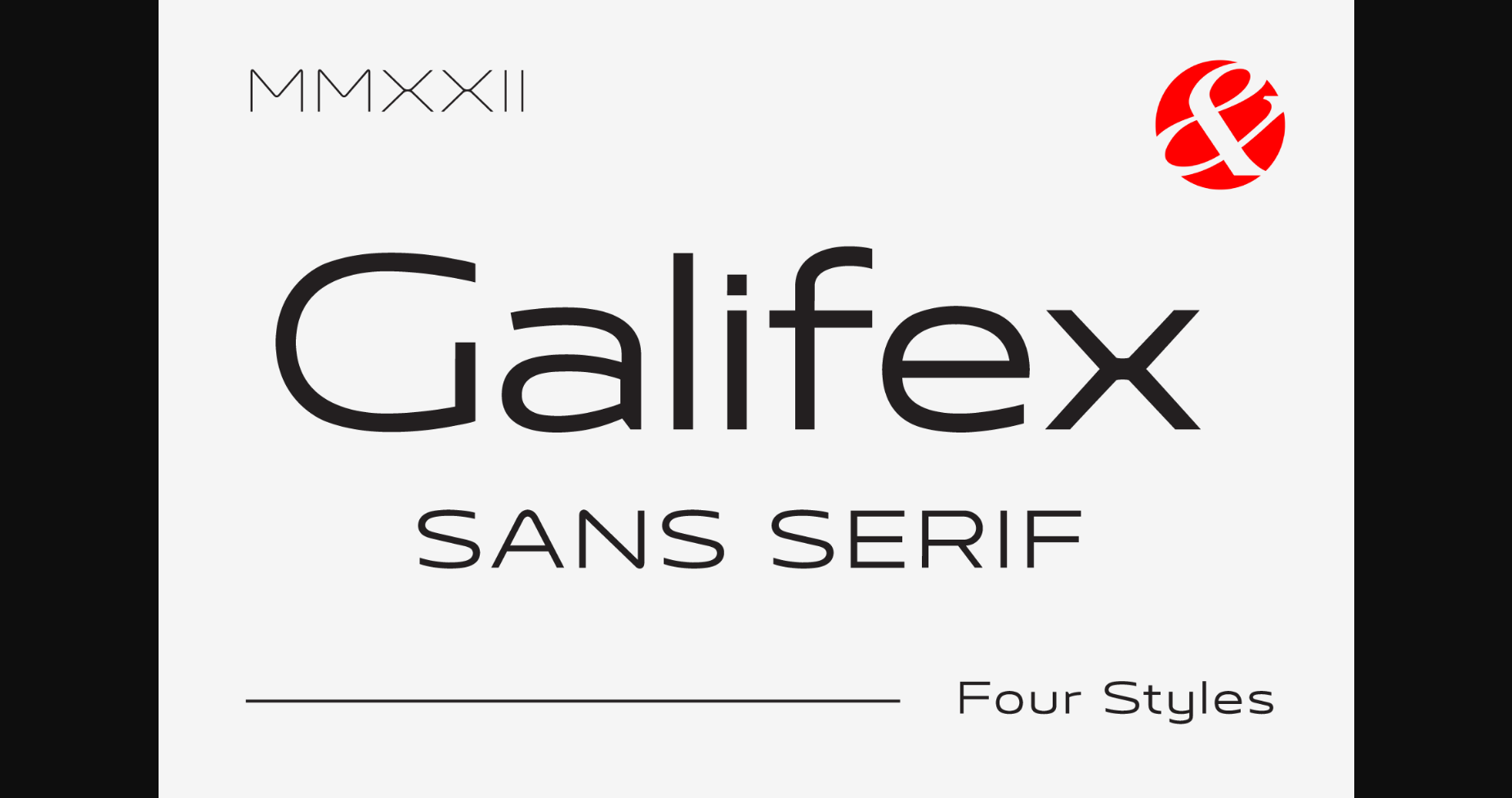
About Galifex Font
Galifex is a clean and modern sans serif font. It works incredibly well on various design ideas that require a cool, futuristic touch. Galifex is PUA encoded which means you can access all of the glyphs and swashes with ease!